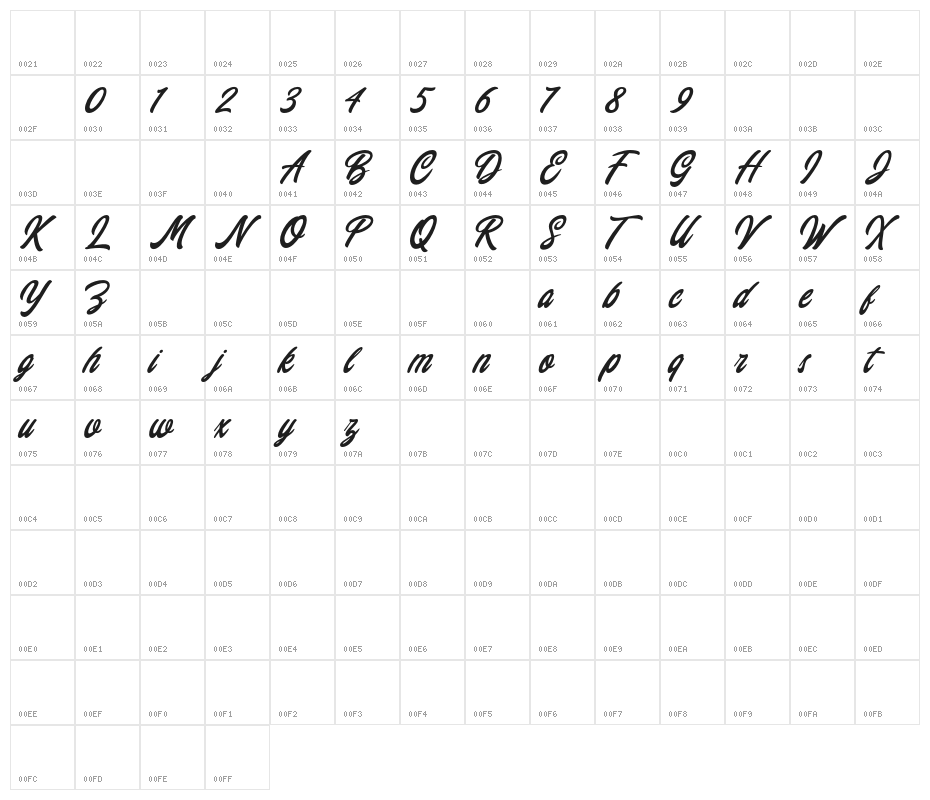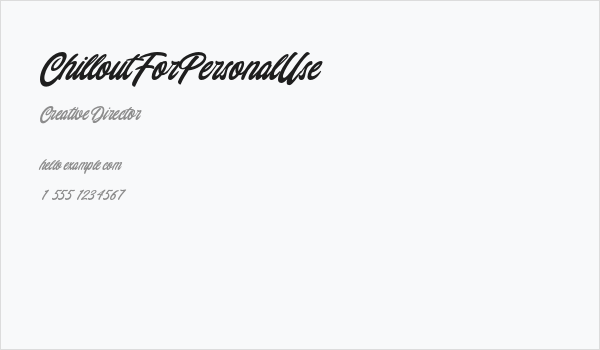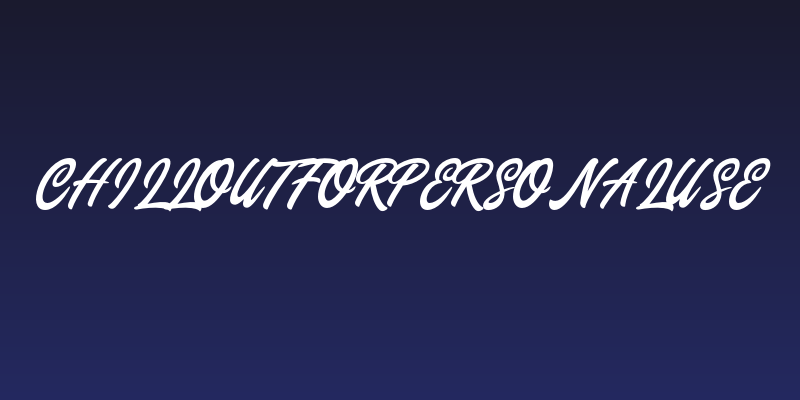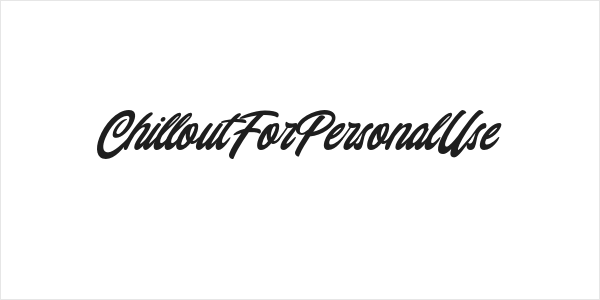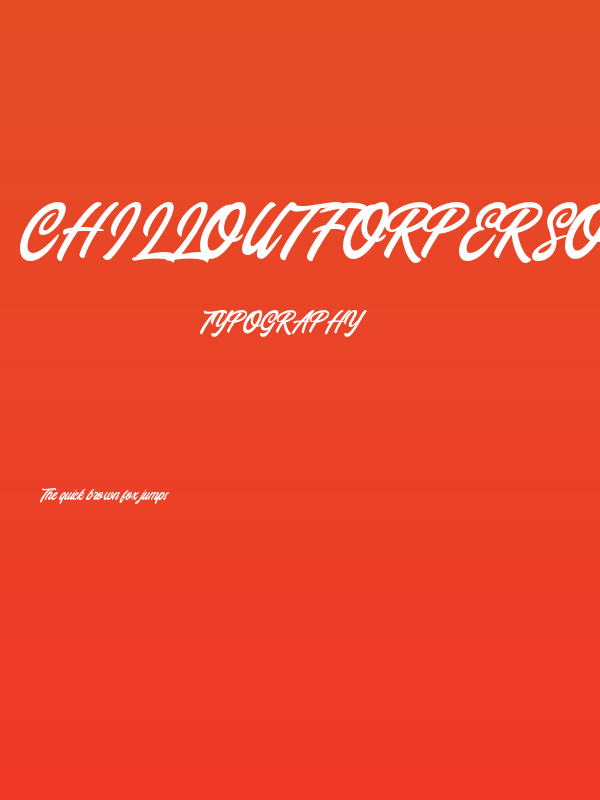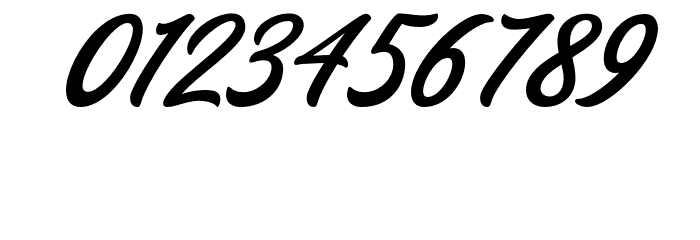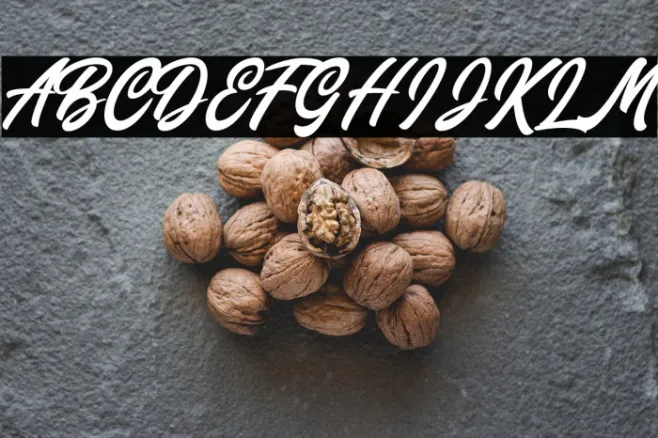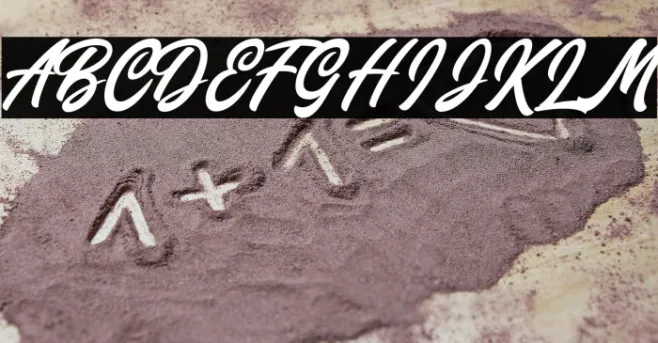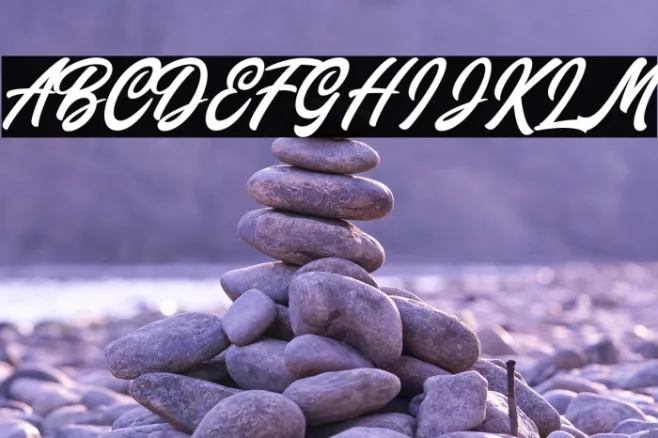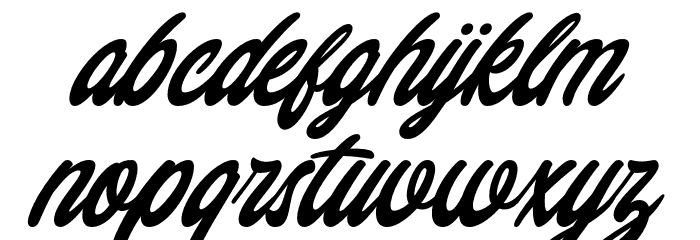
ChilloutForPersonalUse Font
ChilloutForPersonalUse Description
This font features a bold and flowing script style, characterized by its smooth, connected letters that mimic the fluidity of handwriting. The uppercase letters are elegantly curved, while the lowercase letters maintain a consistent rhythm, creating a harmonious and cohesive look. The numbers are equally stylized, maintaining the script's overall aesthetic. This font's design is both expressive and dynamic, making it suitable for projects that require a personal touch. The strokes are thick, providing a strong visual impact, and the overall appearance is both modern and stylish.